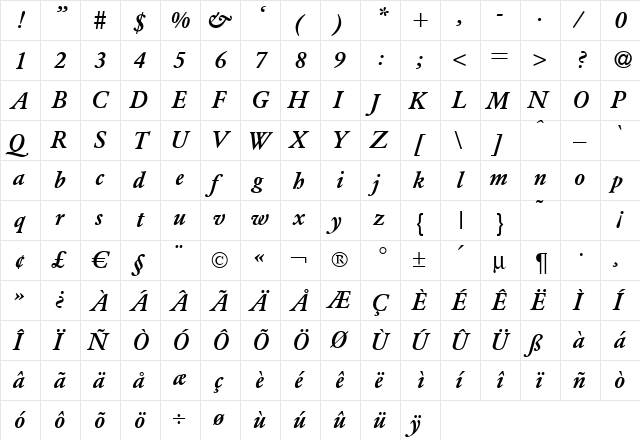
ClassicGarfeld Bold Italic
Design Context for ClassicGarfeld Typeface
ClassicGarfeld has the warm character of retro typography — evoking diners, record sleeves, and the golden age of print advertising. The slanted form adds forward momentum and visual energy. Its bold stroke weight gives it real presence on the page.
Font Pairing: Combine ClassicGarfeld with a simple slab or neutral sans — period-accurate companions reinforce the vintage feel without competing for attention.
Pro Tip: Use ClassicGarfeld for headlines and pull quotes rather than body copy — its personality is best appreciated in short, focused bursts.